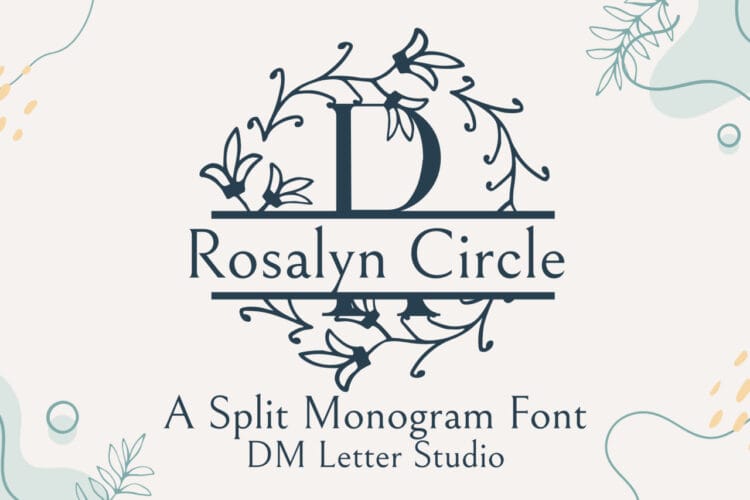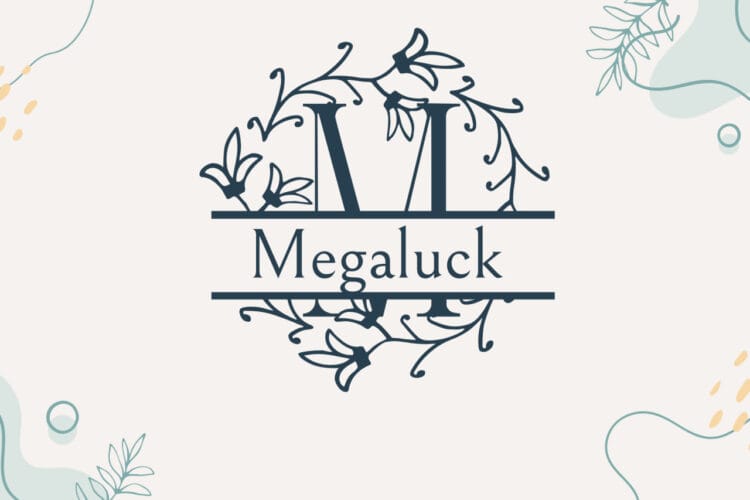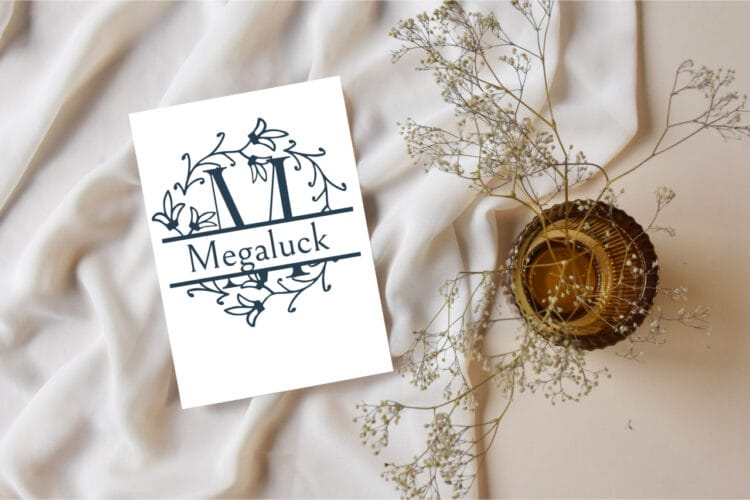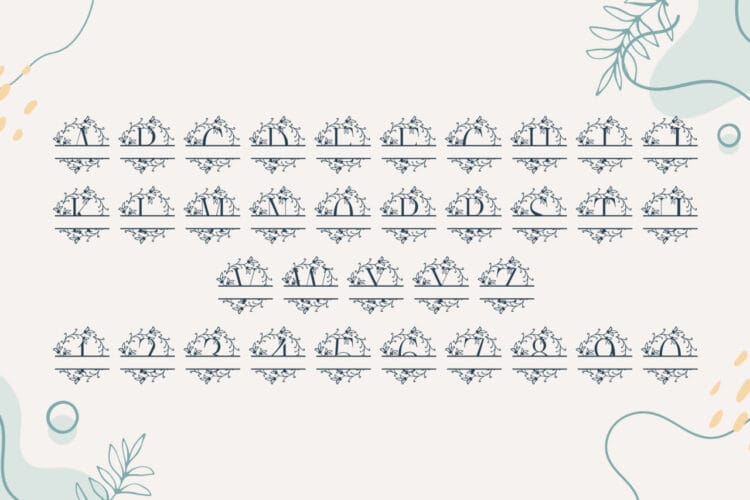
Meet Rosalyn Circle Split Monogram, the Monogram Font
Rosalyn Circle Split Monogram Font transforms initials into romantic circular emblems with a refined center split for names or dates. The rounded frame feels soft and harmonious. At the same time, the split structure adds clarity and balance. Because the letterforms are open and evenly spaced, the font stays readable at small sizes. Meanwhile, it looks graceful and detailed on larger prints. As a result, the Rosalyn Circle Split Monogram is ideal for weddings, romantic branding, stationery, and elegant keepsake designs.
Where this circle split monogram font shines
Use single, double, or triple initials for logos, invitations, menus, place cards, and seals. In the center split, you can add surnames, wedding dates, or short phrases. Because the circular layout feels complete and balanced, designs look polished and intentional. At the same time, the split line keeps information clear and easy to read. For example, you can use the monogram on wax seals, stickers, tags, labels, and favor packaging. In addition, Rosalyn Circle Split Monogram maintains a cohesive style across invitations, boxes, ribbons, and signage. Whether printed small or displayed large, it scales smoothly and remains elegant.
Design tips for Rosalyn Circle Split Monogram
Keep the initials centered and give the split area enough breathing room. This helps names and dates stay clear. Pair the monogram with a classic serif or a light sans serif for supporting text. Also, textured paper, vellum wraps, and soft metallic foils enhance the romantic mood. Because the design already feels decorative, keep wording short. That way, the monogram remains the focal point on seals, favors, and small packaging.
Center split feature for names or dates
Circle-style monogram compositions
Select stylistic alternates for key letters
Curves optimized for foil, letterpress, engraving, laser cutting, and clean vinyl paths
Why do creators choose this circle split monogram font
You want a monogram that feels romantic, balanced, and personal. At the same time, you need clarity and flexibility across many uses. That is why the Rosalyn Circle Split Monogram Font stands out. It blends soft circular framing with a practical split layout. In the end, your designs feel elegant, warm, and timeless.